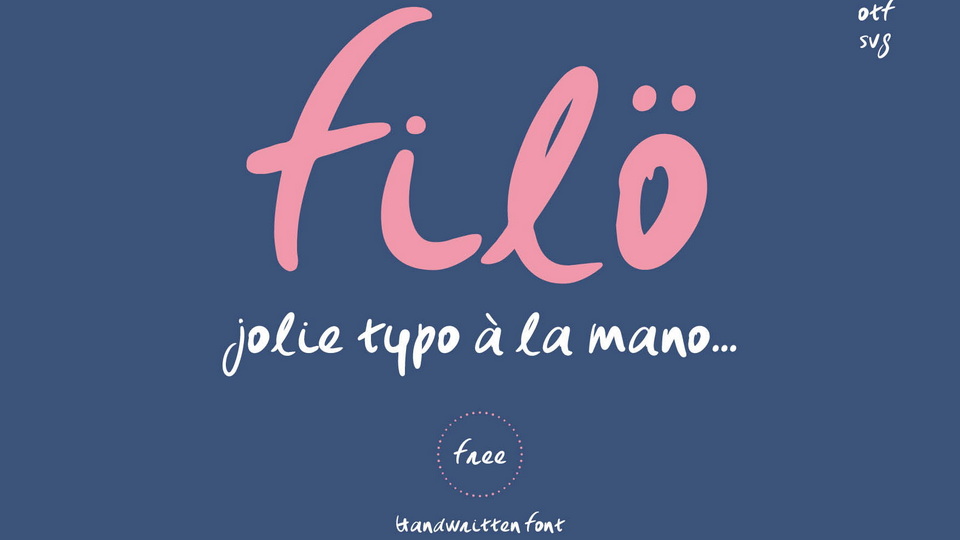
Download Filö font, a unique and simple handwritten typeface with special characters. Crafted with care, love and attention to detail, Filö font is ideal for logos, headings, product packaging, merchandise, quotes.